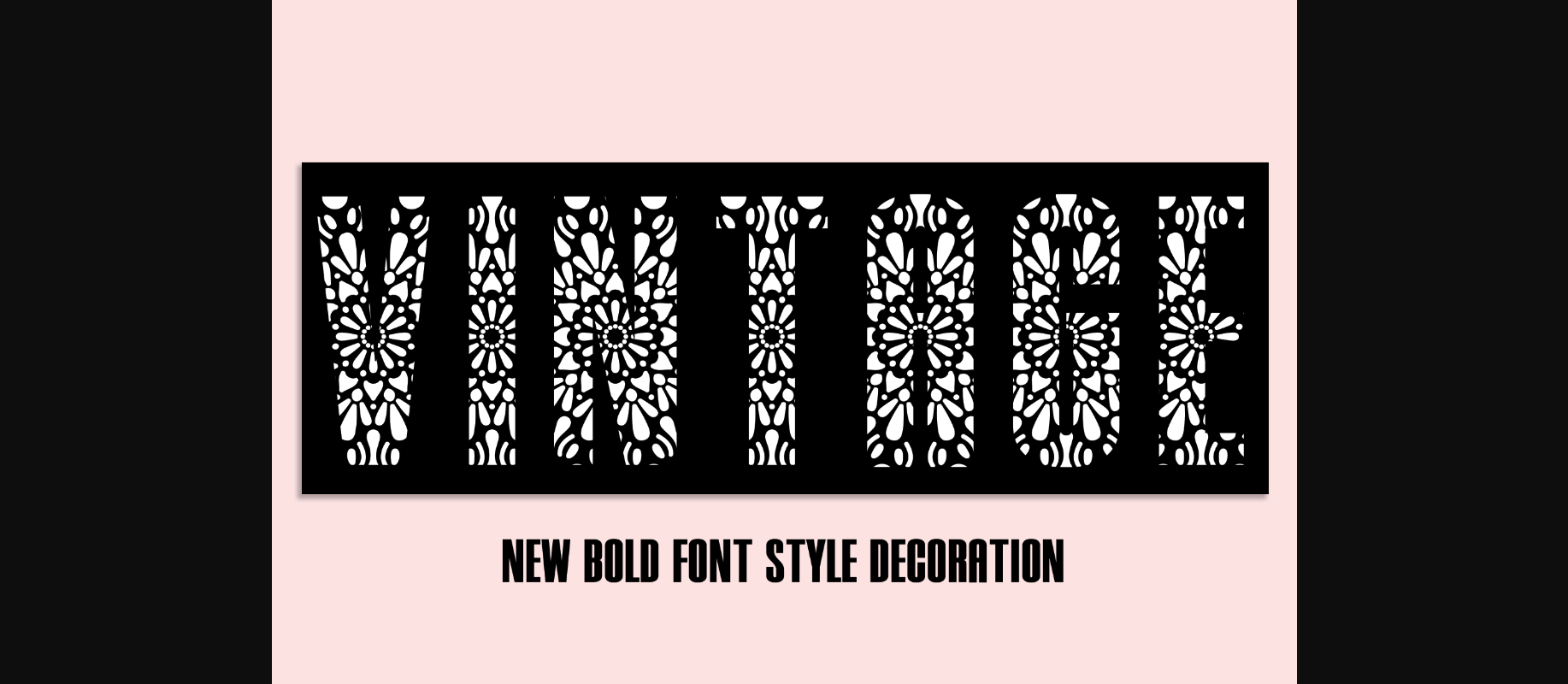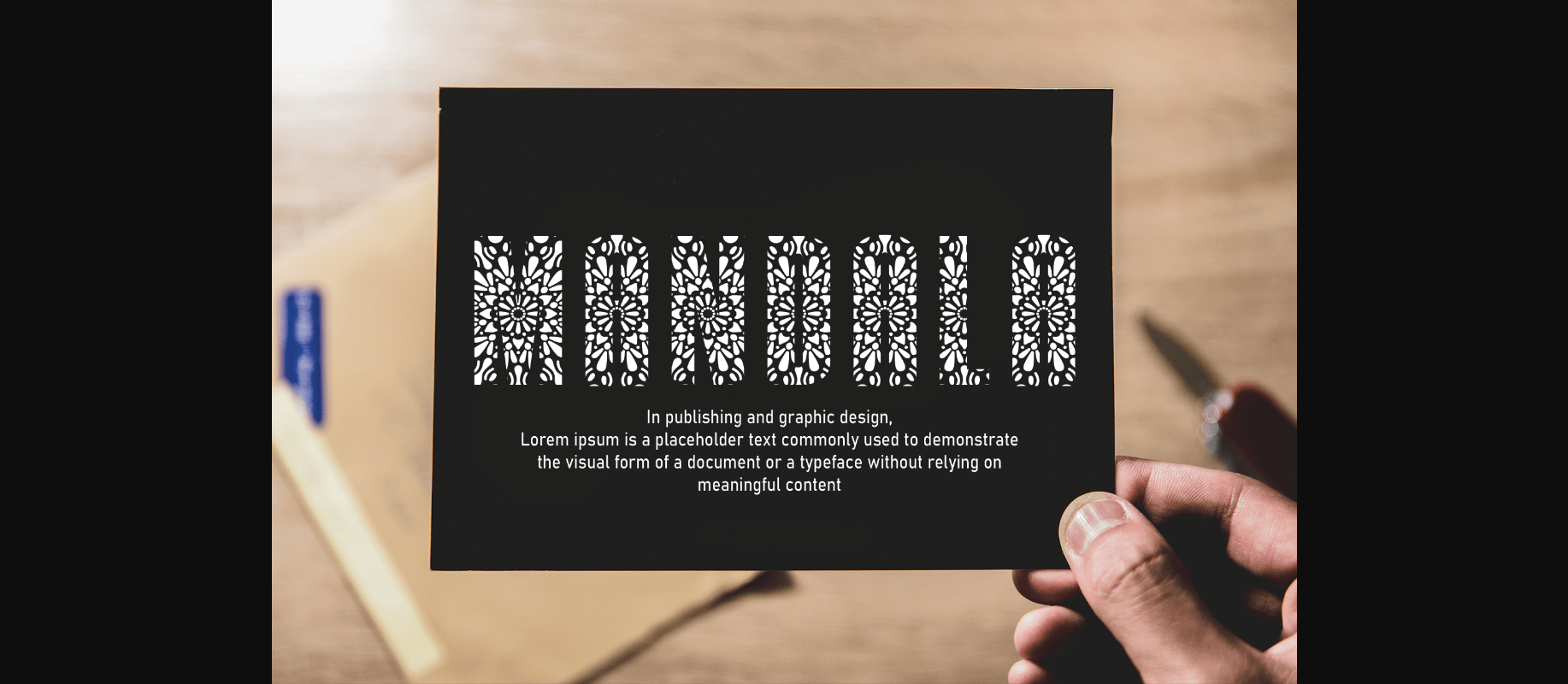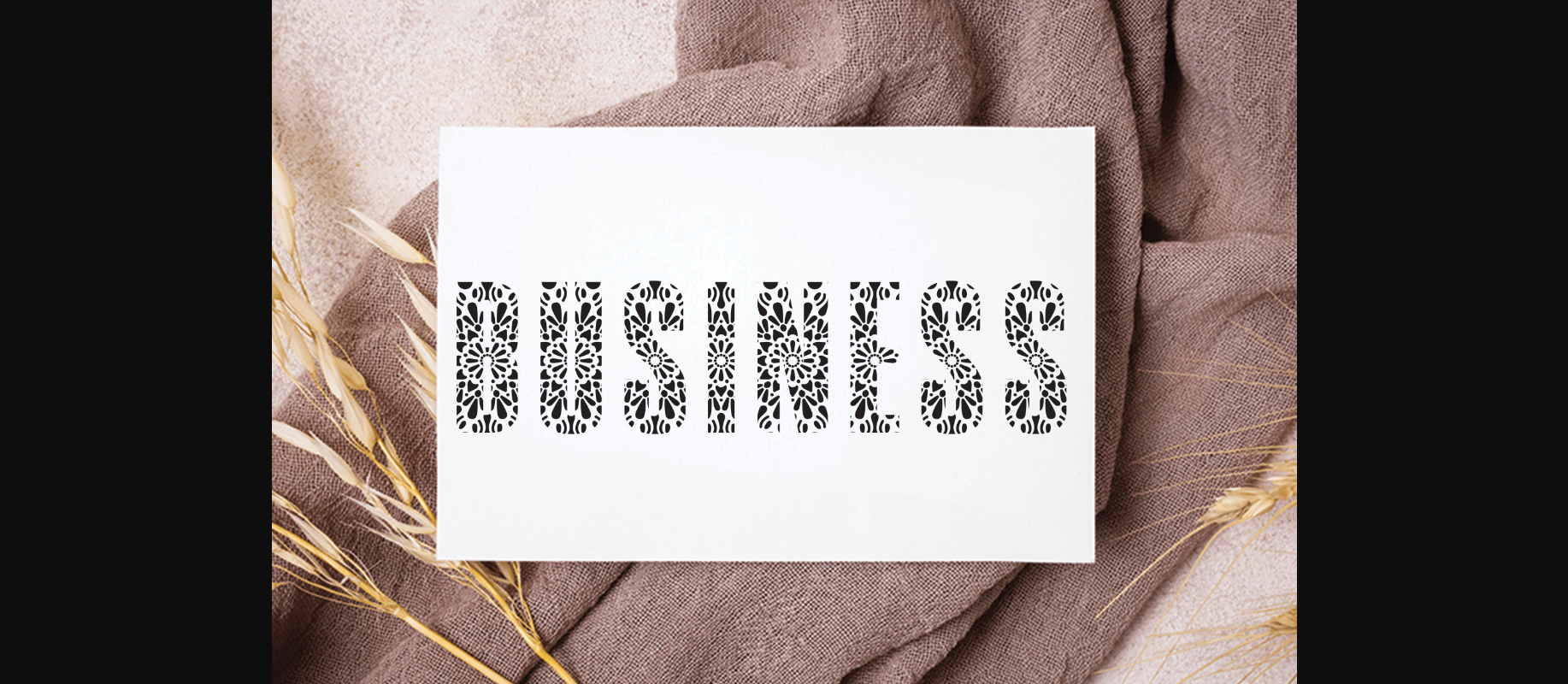
About Vintage Font
Vintage is a beautiful decorative font that you can use for a variety of projects such as wall hangings, wedding invitations, social media posts, logos, advertisements, product packaging, labels, watermarks, invitations, and stationery. It will bring a retro-looking feel to your projects.